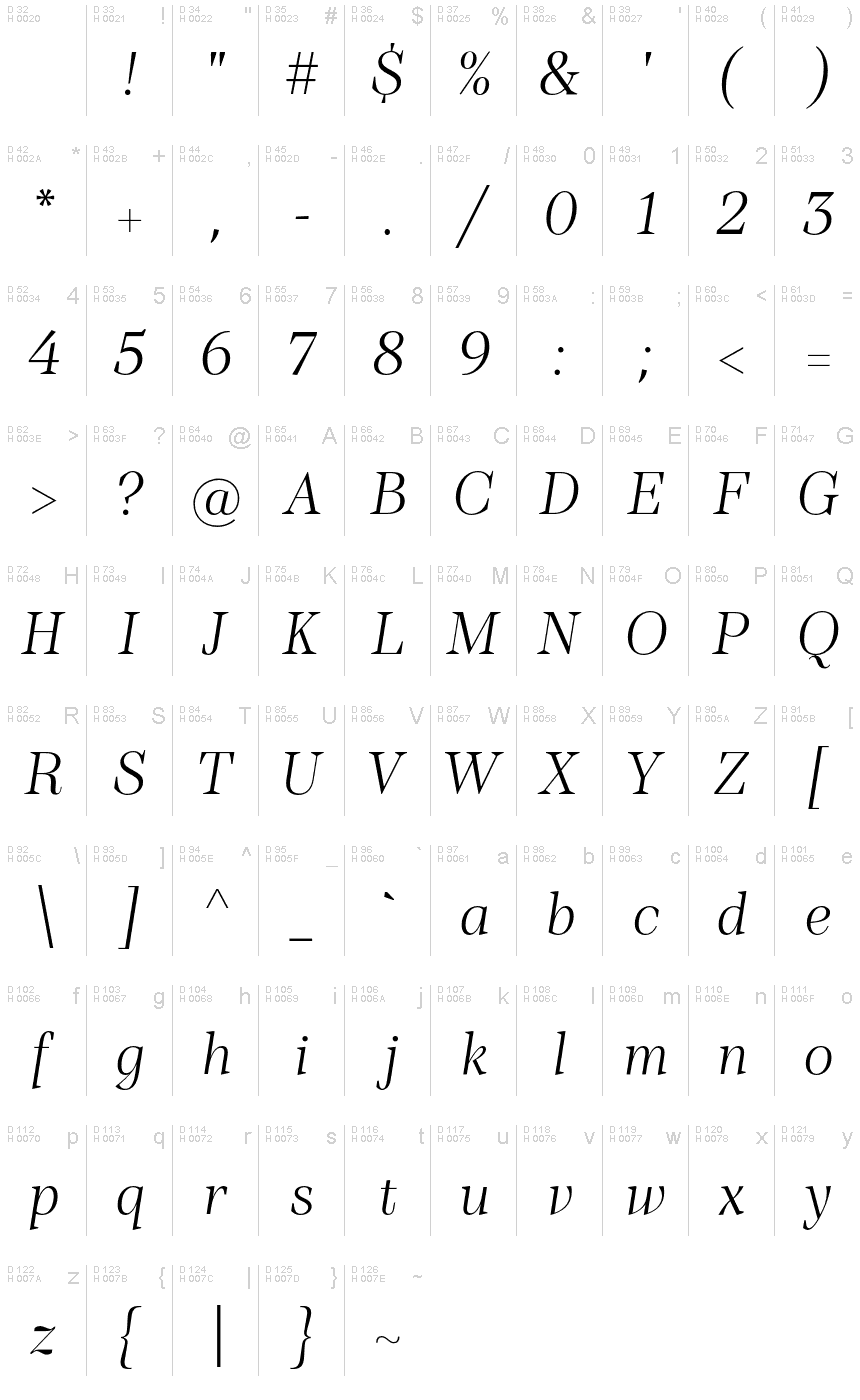
TT Barrels Trl Light Italic
TT Barrels Light Italic is a sophisticated serif font that's perfect for elegant branding projects, editorial designs, and any project that needs a touch of refined class. This font's light weight makes it ideal for shorter texts or headlines, while its italic style adds a touch of flair and personality to your design. From high-end fashion magazines to upscale restaurant menus, TT Barrels Light Italic can elevate any project with its graceful curves and timeless style. Whether you're designing packaging for luxury products or creating an elegant wedding invitation suite, this font is the perfect choice to add sophistication to your design.